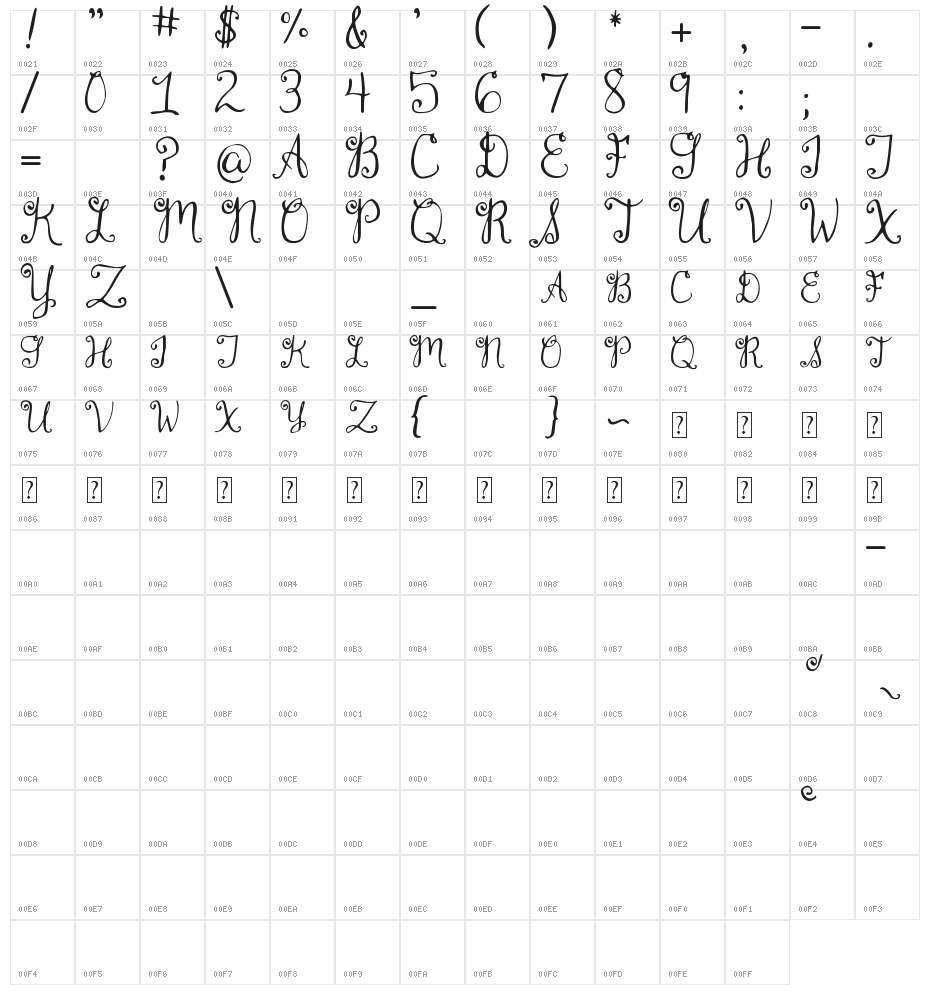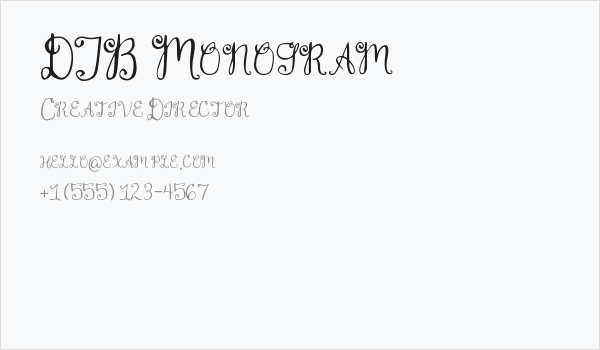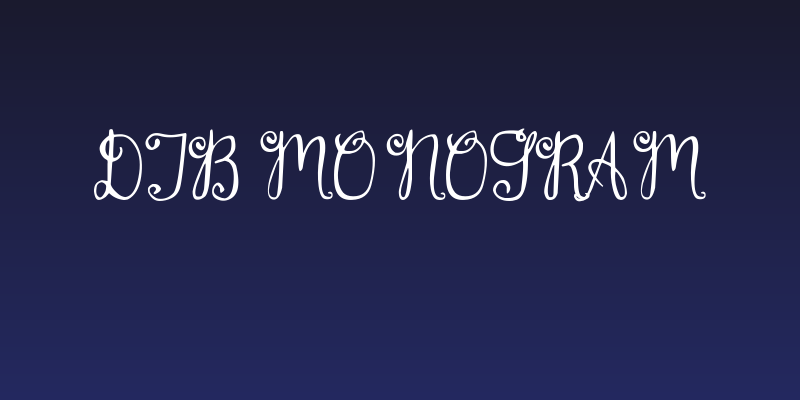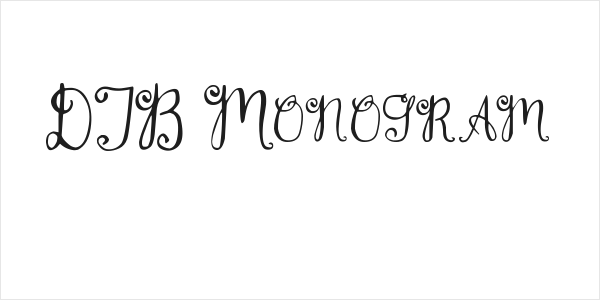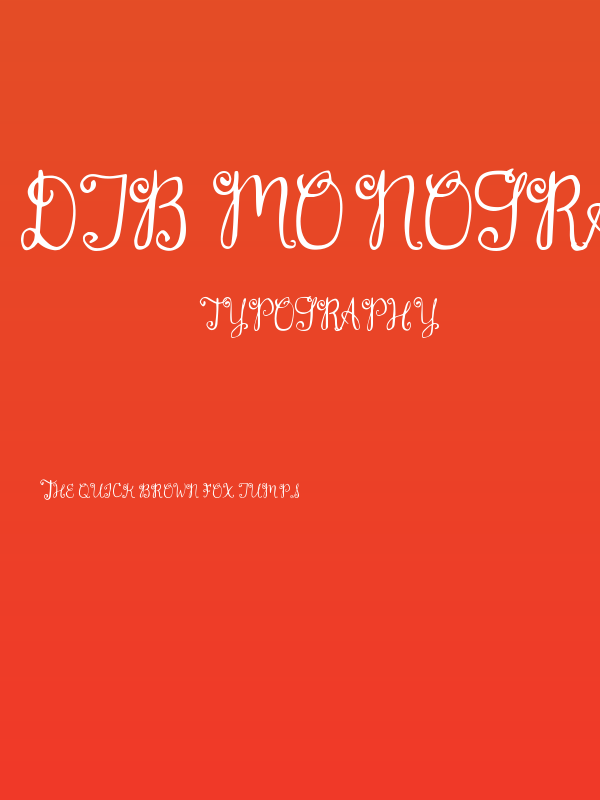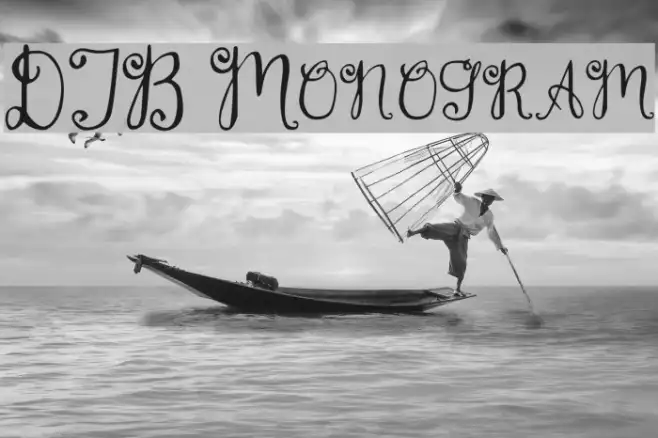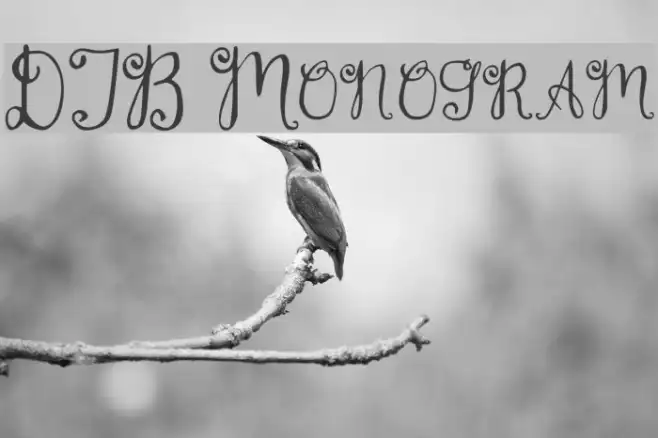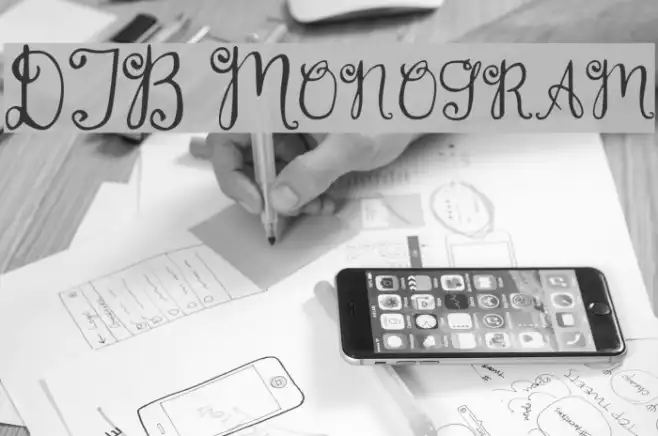
DJB Monogram Font
DJB Monogram Description
This font features an elegant and decorative style with intricate swirls and loops that give it a sophisticated and artistic appearance. The uppercase and lowercase letters are designed with a consistent flow, incorporating ornate elements that enhance their visual appeal. The numerals maintain the decorative theme, ensuring uniformity across all characters. Special characters are also crafted with the same attention to detail, making this font suitable for projects that require a touch of elegance and creativity. Its unique design makes it stand out, ideal for creating monograms, invitations, and other decorative text elements.
| Proposed Projects | Ideal for monograms, wedding invitations, greeting cards, and decorative branding. |